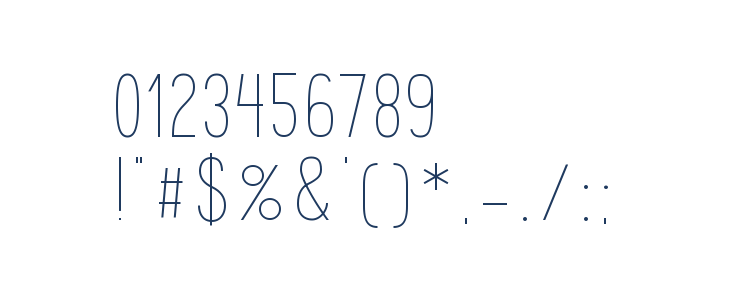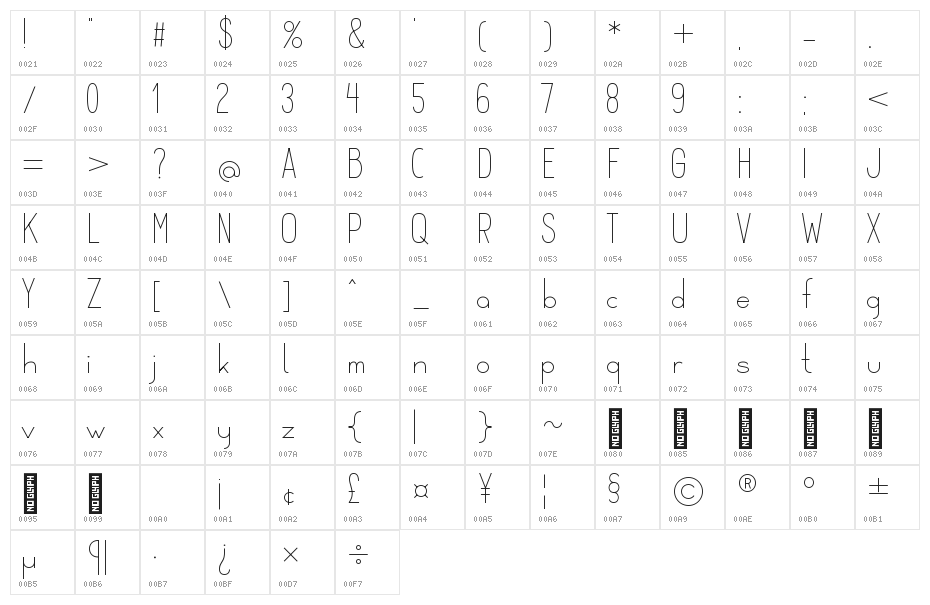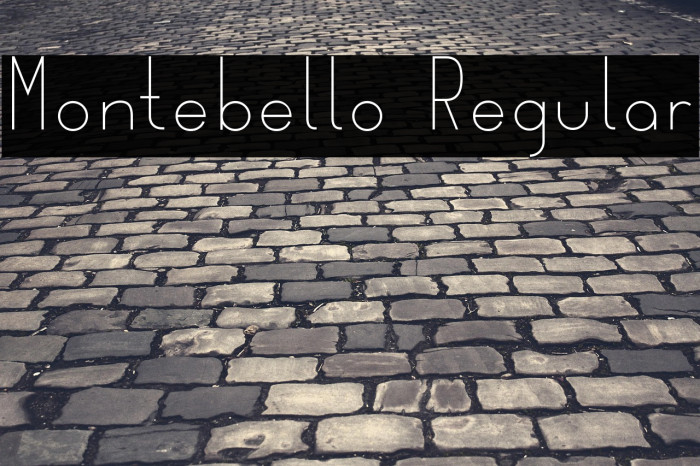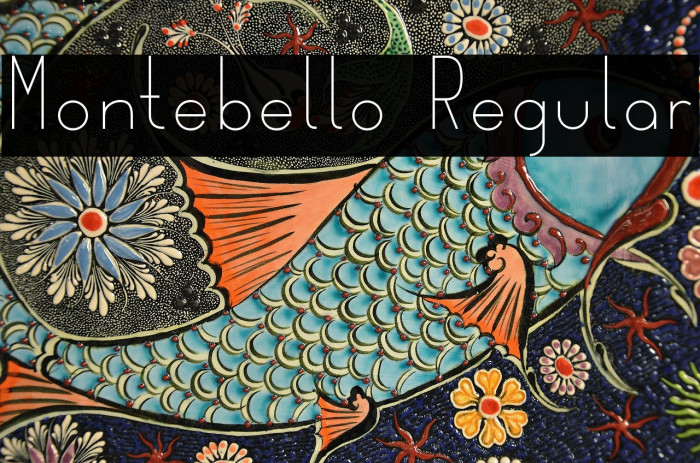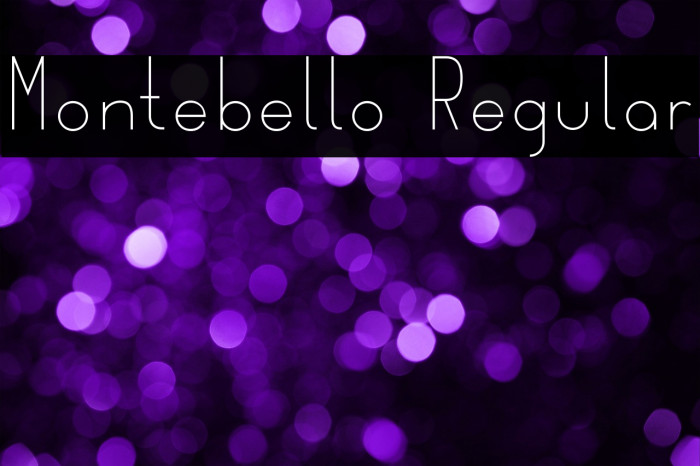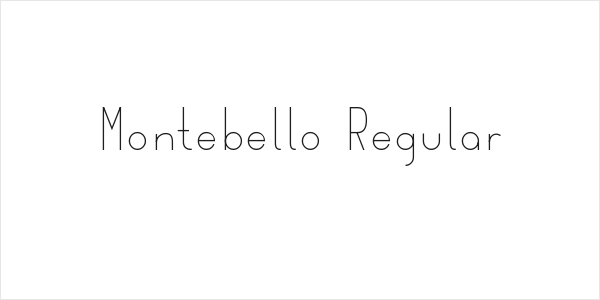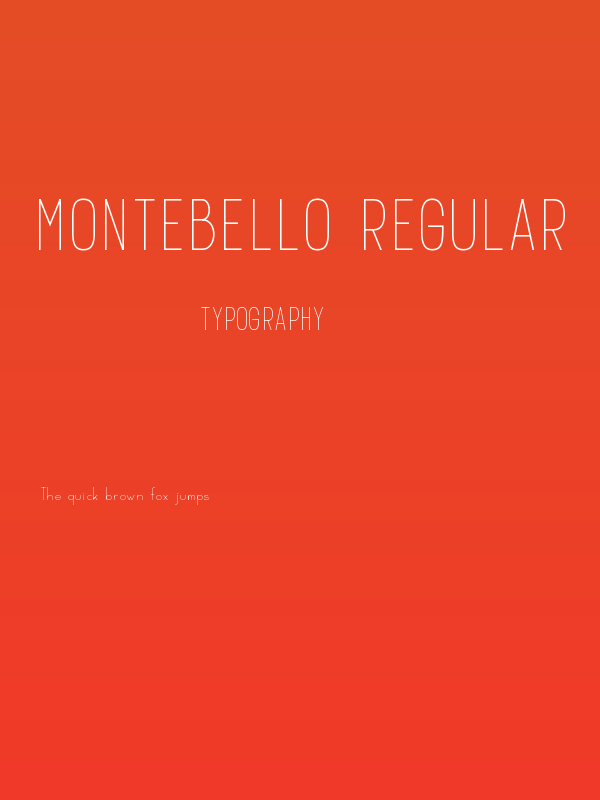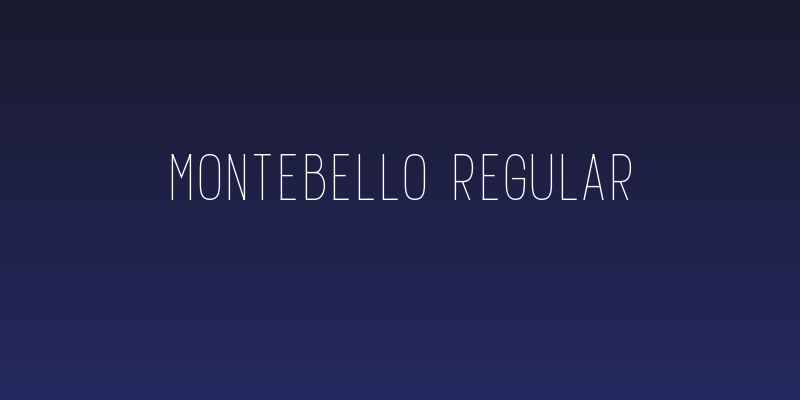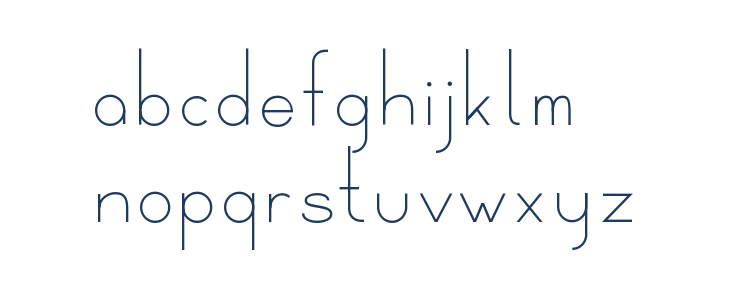
Montebello Regular Font
Montebello Regular Description
This font features a clean and minimalist design with thin, uniform strokes that give it an elegant and modern appearance. The characters are tall and narrow, contributing to a sleek and sophisticated look. The uppercase letters are slightly taller than the lowercase, maintaining a consistent height across the alphabet. The numerals and special characters are designed to match the overall aesthetic, with a focus on simplicity and readability. The font's geometric shapes and balanced proportions make it versatile for various design applications.
| Proposed Projects | Ideal for branding, editorial design, minimalist posters, and modern web design. |